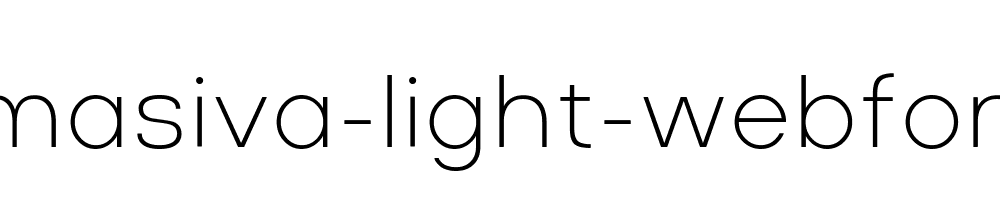
About masiva-light-webfont
The Masiva Light Webfont is a delicate and modern typeface that exudes sophistication and elegance. The font features clean lines and subtle curves, with a perfect balance of aperture and counter space giving it a refined and polished look. The apex of each letter adds a touch of charm, while the gentle arc of the stems creates a sense of fluidity and grace. The closed counters add a sense of solidity and structure to the overall design, while the tidy foot of each letter provides a sturdy foundation. The slight shoulder on the stems gives the font a touch of personality and warmth, making it perfect for a wide range of design projects. Masiva Light Webfont falls under the filters of Elegant and Progressive, with its unique blend of classic charm and contemporary style making it a versatile choice for any design need.